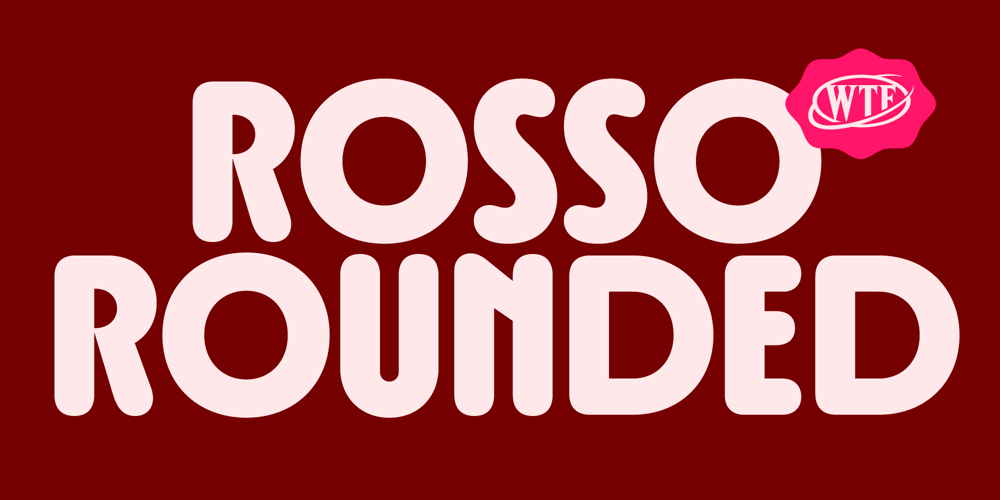
Rosso Rounded Font Family was designed by Gaspar Muñoz and published by W Type Foundry. Rosso Rounded contains 20 styles and family package options. Rosso Rounded is a rounded version of the original Rosso typeface, offering a distinctive and unique look. This font combines the Art Deco style with rounded forms, making it a versatile and attractive option for projects seeking a modern and friendly style.Like its predecessor, Rosso Rounded is designed with a geometric and condensed structure. However, its rounded shapes create a visual contrast that gives it a fresh and welcoming touch, ideal for branding and packaging design.Rosso Rounded maintains the solidity and clarity of the Rosso family, complementing its use in logos, striking headlines, and advertising posters. Its design includes variants and alternate glyphs that allow for greater flexibility and creativity in design projects.All in all, Rosso Rounded is a typeface with its own personality, perfect for adding a modern and friendly touch to any graphic piece.